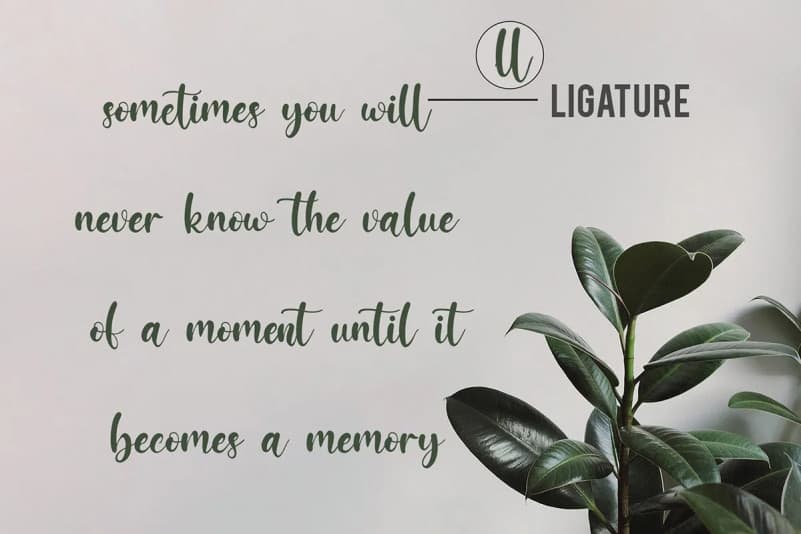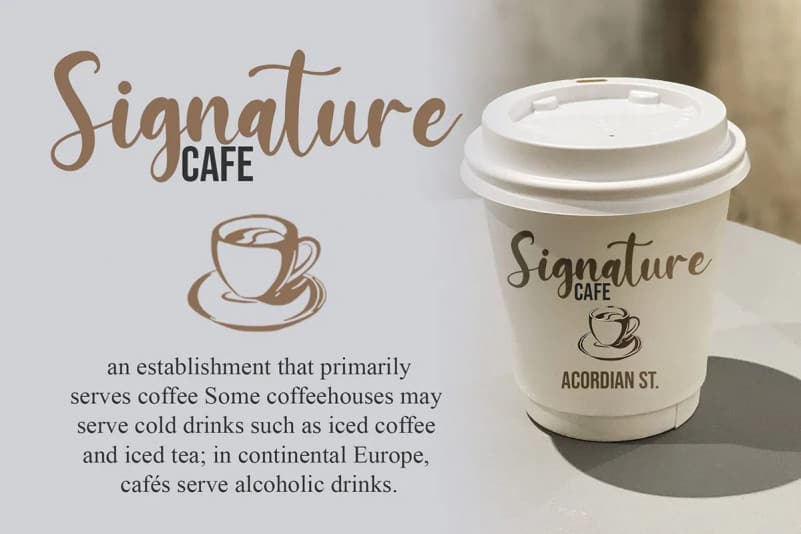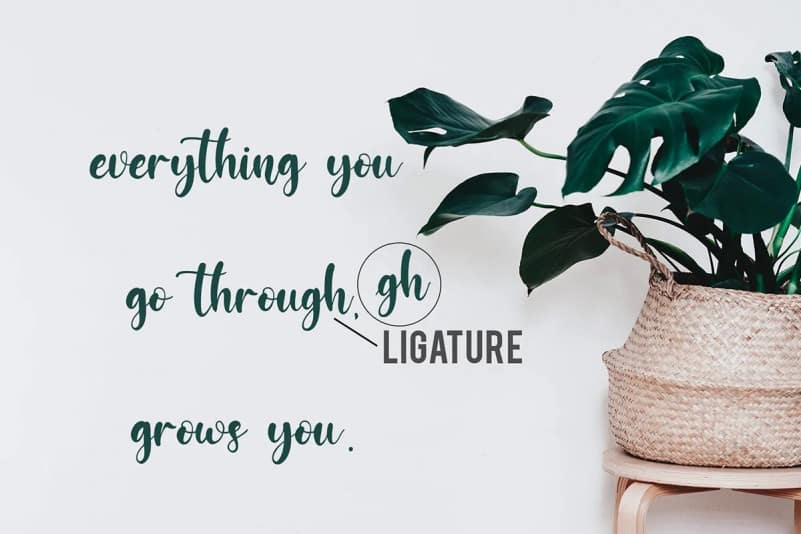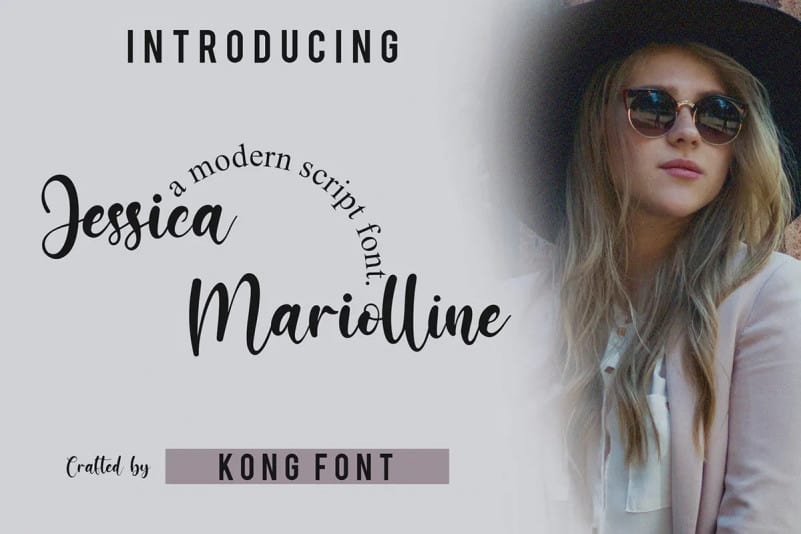
Jessicca Mariolline Script Font is beautiful handwrittern Script. This font has been inspired by natural brush strokes, making it organic and natural. It has been designed with many ligatures to make every word unique for a natural handwriting feel.